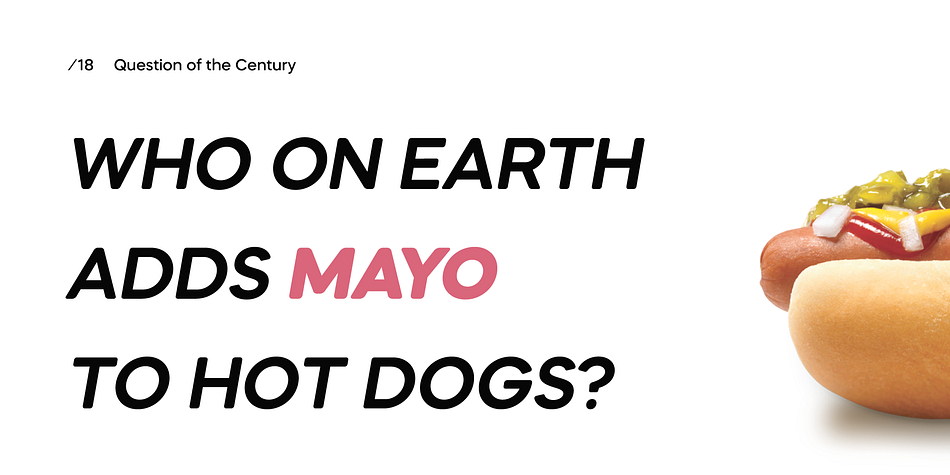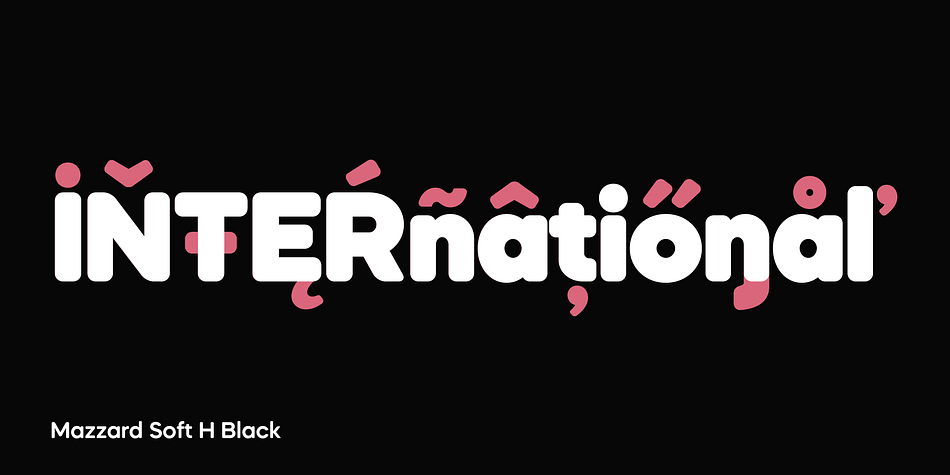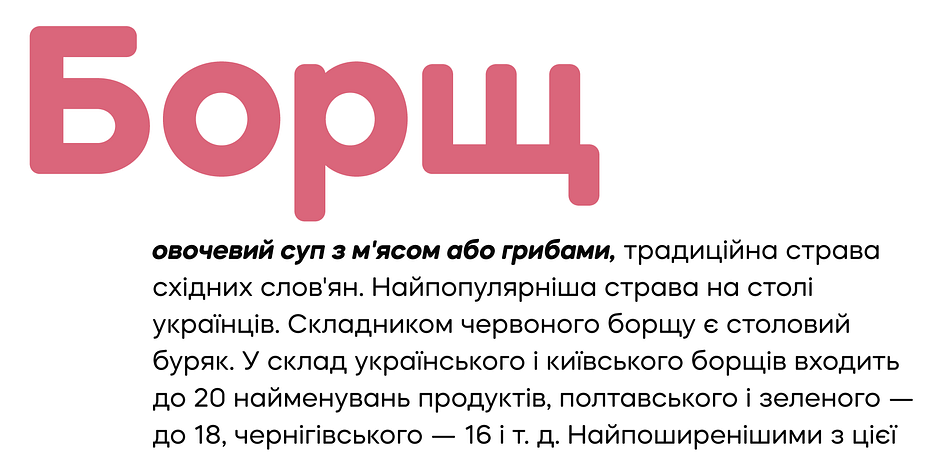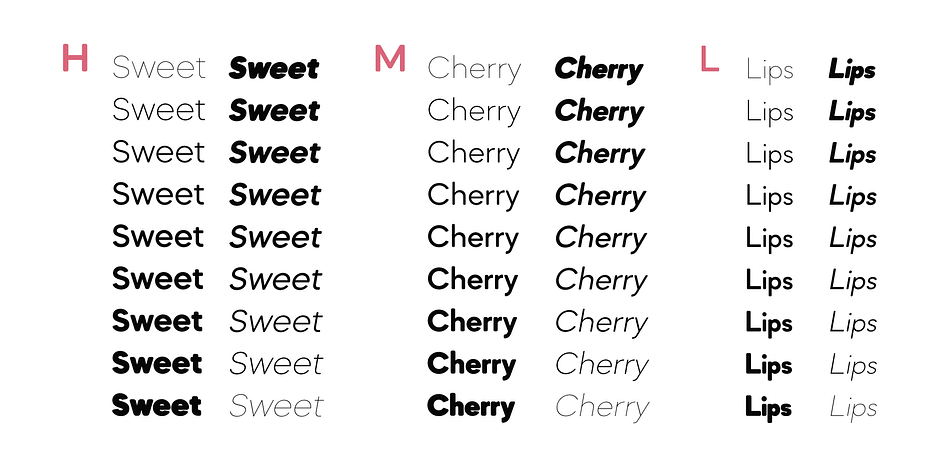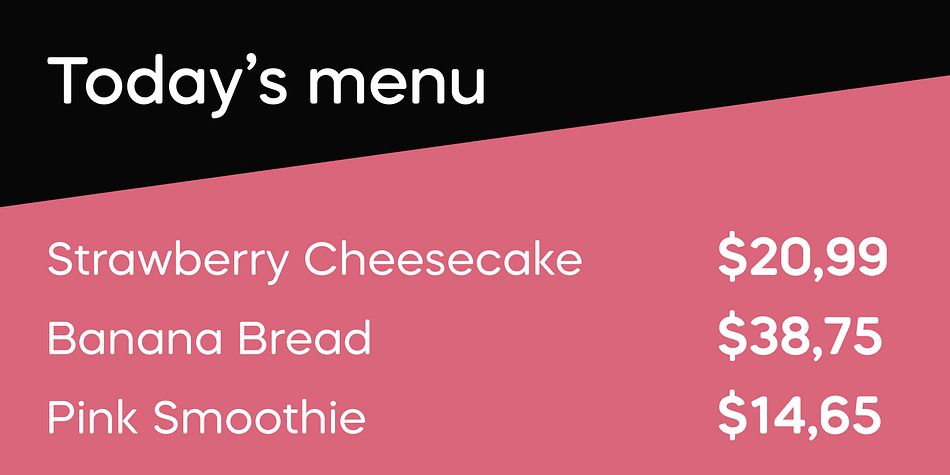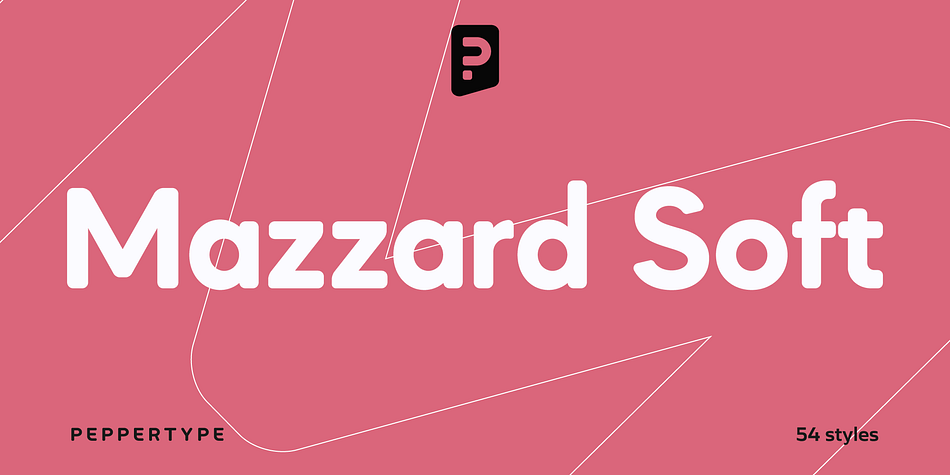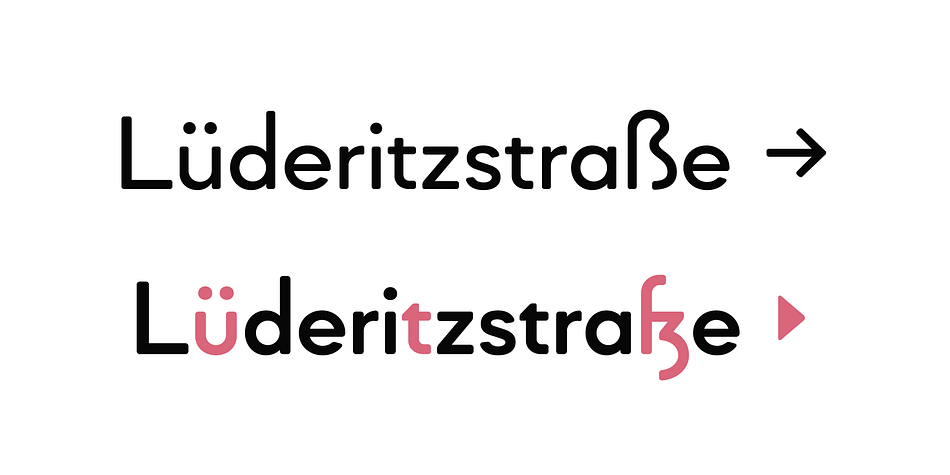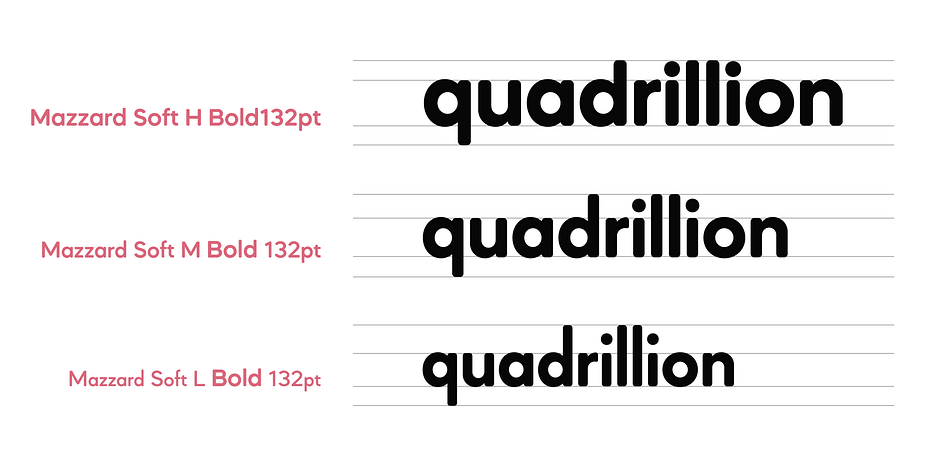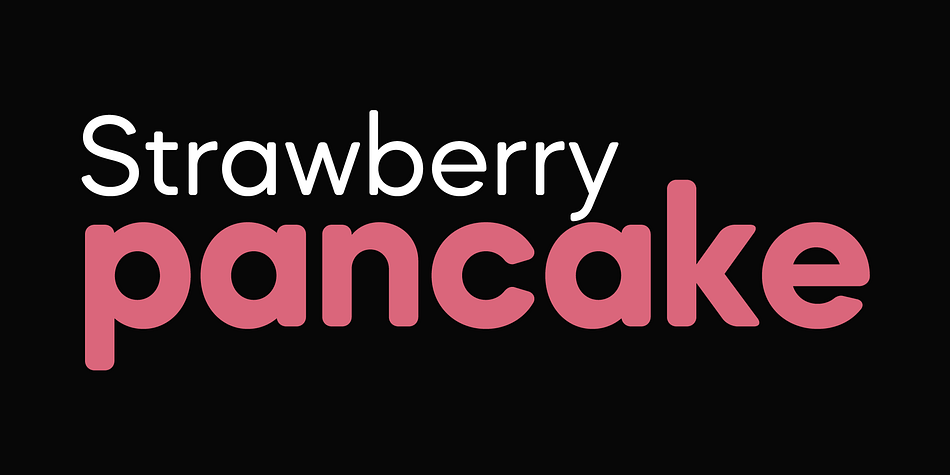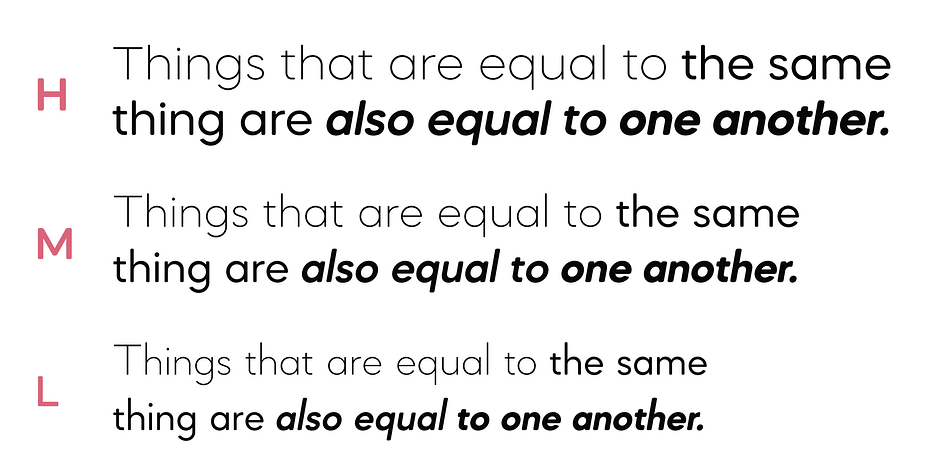
Mazzard Soft L is a sans serif font family. This typeface has eighteen styles and was published by Pepper Type.
Mazzard Soft is a rounded version of Mazzard – a superfamily of three geometric grotesques with three different x-heights (H, M, and L).
It features rich language support, includes Cyrillic, and offers a wide variety of alternate forms.